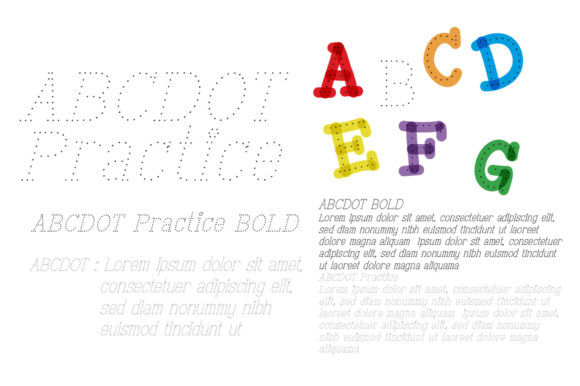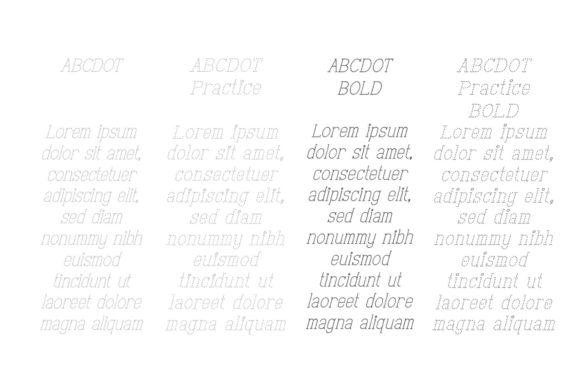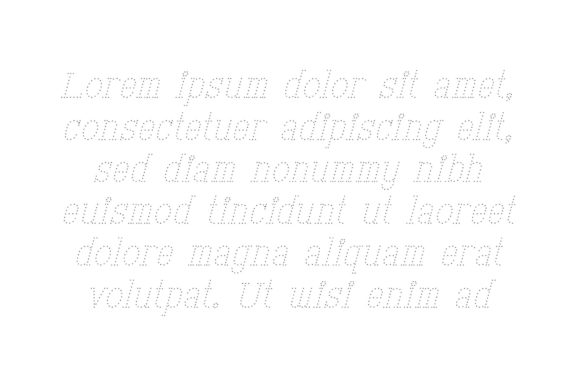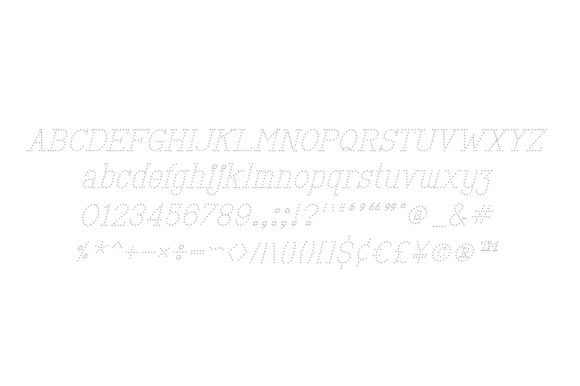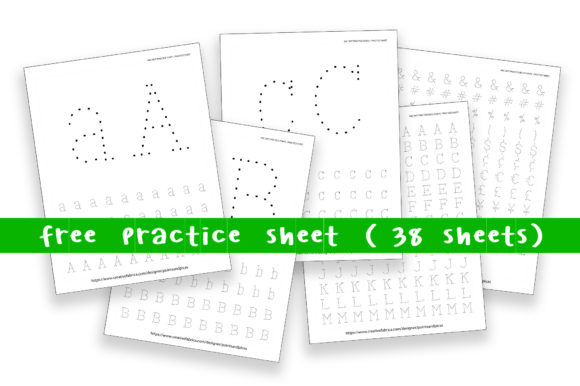
Introducing ABC Dot Practice Italic Font: The Perfect Addition to Your Design Arsenal
Are you on the hunt for a font that adds a touch of elegance and sophistication to your designs? Look no further than the ABC Dot Practice Italic Font. This clean and simple dotted display font is ideal for a wide range of applications, from school work and writing web designs to business cards and beyond.
What Makes ABC Dot Practice Italic Font So Special?
The ABC Dot Practice Italic Font is a versatile and stylish addition to any designer’s toolkit. Its unique dotted pattern gives it a distinctive look that’s both modern and eye-catching. Whether you’re working on a project for a client or creating something for personal use, this font is sure to make your work stand out.
One of the key benefits of the ABC Dot Practice Italic Font is its incredible flexibility. It can be used for a wide range of applications, from:
- School work: Add a touch of personality to worksheets, presentations, and other educational materials.
- Web design: Use the ABC Dot Practice Italic Font to create stylish headings, titles, and other design elements for your website.
- Business cards: Make a lasting impression with a font that’s both professional and visually appealing.
- Crafting: Add a personal touch to your DIY projects, such as handmade cards, scrapbooking, and other paper crafts.
Key Features of the ABC Dot Practice Italic Font
The ABC Dot Practice Italic Font has a number of key features that make it an attractive choice for designers and crafters. Some of its standout features include:
- Clean and simple design: The ABC Dot Practice Italic Font has a sleek and modern aesthetic that’s perfect for a wide range of applications.
- Dotted pattern: The font’s unique dotted pattern gives it a distinctive look that’s both stylish and eye-catching.
- Italic style: The italic style of the font adds a touch of elegance and sophistication to any design.
- High-quality: The font is designed to be clear and legible, even at small sizes.
Tips for Using the ABC Dot Practice Italic Font
To get the most out of the ABC Dot Practice Italic Font, here are a few tips to keep in mind:
- Use it sparingly: While the ABC Dot Practice Italic Font is a beautiful font, it can be overwhelming if overused. Use it sparingly to add a touch of elegance to your designs.
- Pair it with other fonts: The ABC Dot Practice Italic Font pairs well with a wide range of other fonts. Experiment with different combinations to find the one that works best for your design.
- Experiment with different sizes: The ABC Dot Practice Italic Font is clear and legible even at small sizes, but it can also be used to create bold and eye-catching headings.
The ABC Dot Practice Italic Font is a versatile and stylish addition to any designer’s toolkit. Its unique dotted pattern and elegant italic style make it perfect for a wide range of applications, from school work and web design to business cards and crafting. With its clean and simple design, high-quality, and flexibility, this font is sure to become a favorite among designers and crafters alike.